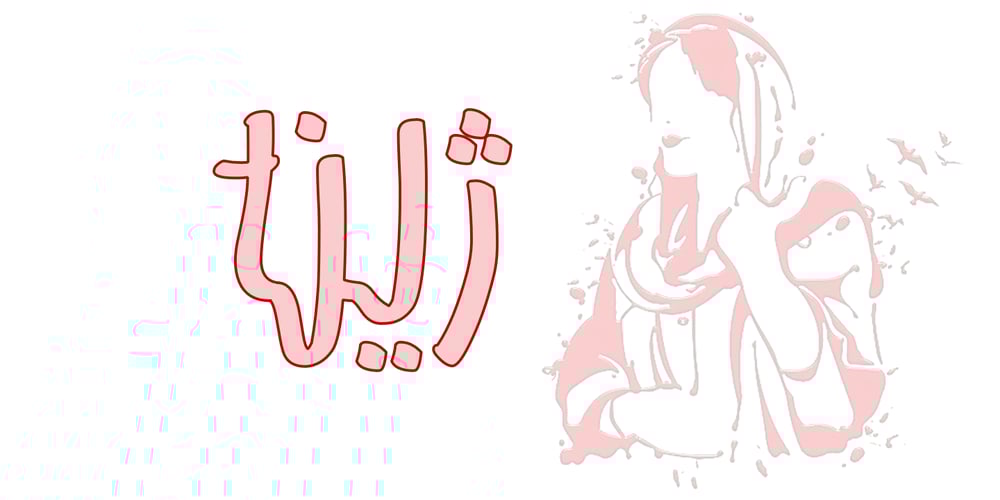
Zhin Font Family was designed by Aria Fakhari and published by Fakharia. Zhin contains 4 styles and family package options. Zhin (ژین, Life) is designed specifically support zhina font family, featuring four unique styles. The initial two styles, zhin regular and zhin LP regular, reflect classical Arabic typefaces. In all styles, the capitalized (Isolated) letters have been modified from their traditional horizontally extended shapes to a vertically extended configuration. This adjustment has been made to create a visually cohesive appearance that is especially suitable for horizontal text composition.The zhin LP (Less Point) regular is the only style in this font family that reduces dots, replacing glyphs with two or more dots with a new shape that has no dots.The zhin MC (Mixed Case) regular font effectively emulates Latin typographic styles, enabling users to switch between lowercase (Initial) and uppercase (Isolated) letters via a software Caps Lock key. This software-based Caps Lock functionality may be activated or deactivated by inputting the Tatweel character. more…The last style is the All Caps (zhin AC regular) version of this family.